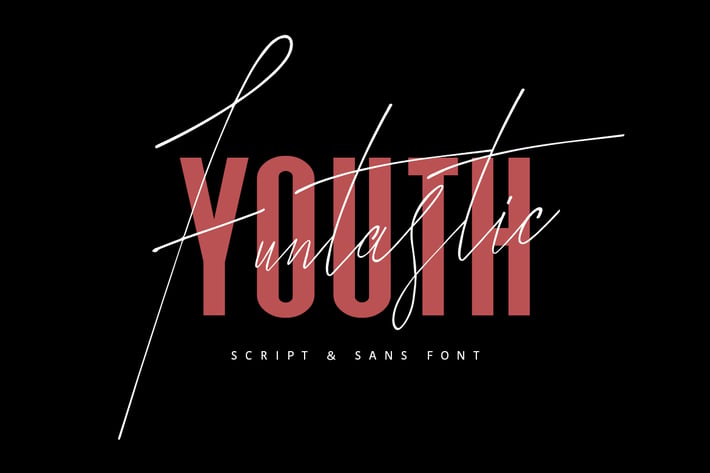
Funtastic Youth Typeface
Give your designs an authentic handcrafted feel. "Funtastic Youth" is perfectly suited to signature, stationery, logo, typography quotes, magazine or book cover, website header, clothing, branding, packaging design and more.